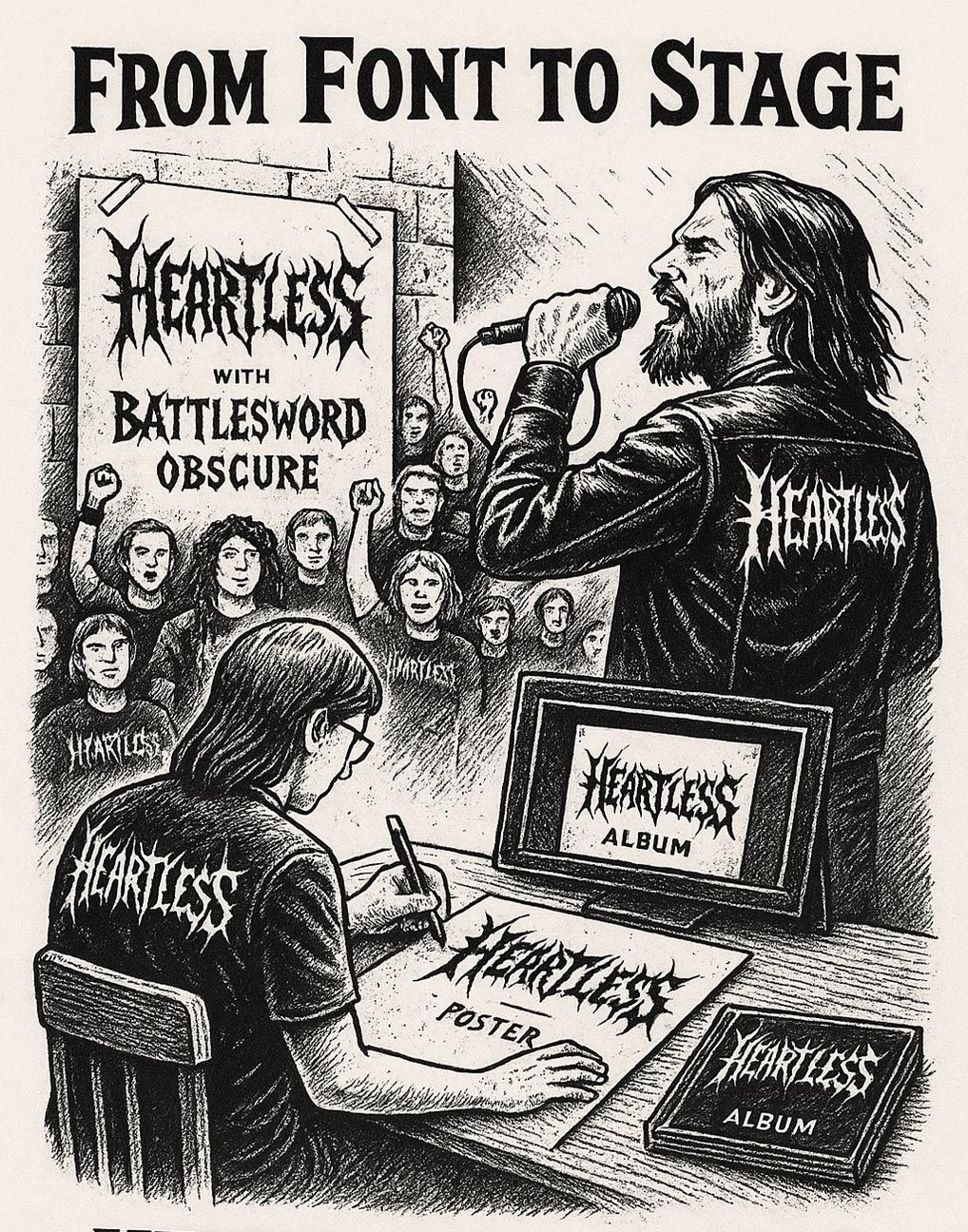
Designing brutal fonts for the metal scene is a true art—dripping with chaos, darkness, and identity. But creating a great font is only half the battle.
The real challenge? Getting it into the hands of bands, designers, and metal labels around the world.
In a world flooded with digital assets, how do you make sure your font stands out in the underground—and beyond?
Let’s explore proven ways to get your metal fonts noticed, used, and respected in the industry, including how the font Heartless became a favorite among metal creatives.
⚡ 1. Design for a Scene, Not for Everyone
Metal isn’t mainstream—and your font shouldn’t try to be either.
Design with specific subgenres in mind:
- Black metal: organic, thorny, nearly illegible
- Deathcore: sharp, aggressive, techy
- Doom/Sludge: heavy, textured, decayed
- Thrash or Stoner: bold, classic, old-school
Bands want fonts that match their sound and message, not just something trendy.
📂 2. Make Fonts Easy to Find and Use
No matter how good your font is, if no one can find it, it won’t be used.
Tips:
- Build a clean landing page or site (like BlackMetalFont.com).
- Include clear previews, usage examples, and font pairing suggestions.
- Offer both free demo versions and licensed versions (standard, extended, commercial).
The easier it is for bands to try your font, the faster it spreads.
🧠 3. Get Featured Where Metal Creators Lurk
To be seen by bands and labels, go where they hang out:
- Instagram: Post font previews with band mockups or album-style covers.
- Behance/Dribbble: Share case studies showing how your fonts look in action.
- Reddit (r/metal, r/metalcore, r/graphic_design): Share fonts, ask for feedback, engage.
- Font marketplaces: Use platforms like Creative Market, Envato, or MyFonts to reach global eyes.
- Bandcamp + YouTube: Collaborate with album reviewers or lyric video creators.
Don’t just post “here’s a font.”
Post “here’s how your band could look using this.”
🎯 4. Collaborate with Designers and Labels
A smart shortcut into the scene is by collaborating with those who already design for metal bands.
- DM cover artists, layout designers, tattooists, merch illustrators.
- Offer free font usage in exchange for credits or exposure.
- Build packs (fonts + assets) tailored for album designers.
Heartless Font became well-known because it spread through designers first, not bands.
Once designers started using it on real projects—band covers, gig posters, merch mockups—the scene noticed.
🖼️ 5. Show, Don’t Just Sell
Fonts don’t sell themselves—they need context.
- Create fake album art.
- Make fake logos for fictional bands.
- Show before/after branding samples.
- Print it on shirts, patches, flyers.
When someone sees your font in action, it becomes real.
🕯️ 6. Build a Dark Brand Around Your Fonts
If your font looks brutal but your presentation feels basic, it won’t impress the metal world.
- Use gritty, black-and-white or horror-inspired mockups.
- Design with atmospheric elements: fire, fog, bones, ruins.
- Write descriptions like a band bio: “Born in blood, forged in silence…”
A font like Heartless didn’t just succeed because of its design.
It succeeded because it felt like it belonged on stage.
Conclusion
If you want your metal fonts to be used by big bands and respected designers, don’t just design cool letters.
- Design for the culture.
- Share with intention.
- Collaborate with creatives.
- And always, always show your font living and breathing in brutal, beautiful chaos.
Remember: a metal font doesn’t become legendary in silence—it must scream to be heard.